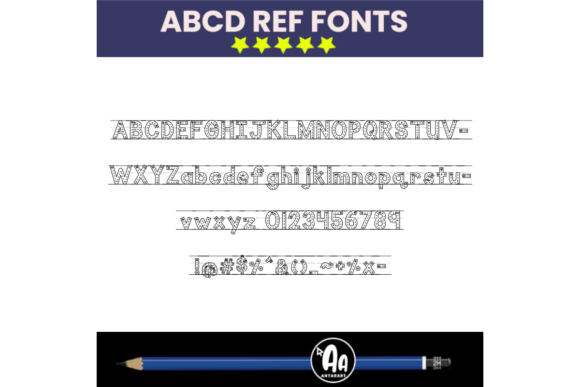
Introducing the Dashed Outlined Arrows Lined Font: A Game-Changer for Early Education
The Dashed Outlined Arrows Lined Font is a revolutionary tool designed to make learning fun and engaging for preschool, kindergarten, and early elementary learners. This clean, teacher-ready tracing font features outlined, dashed (dotted) lined alphabet and number glyphs, accompanied by numbered arrows and lined guides, making it perfect for printed worksheets, digital tracing slides, handwriting centers, and fine-motor practice.
What Makes This Font So Special?
This font is specifically designed to cater to the needs of early learners, including those with ESL and special education needs. The fonts ensure consistent and easy-to-teach alphabet and number formation, making it an ideal tool for morning work, intervention, homework, or printable practice pages.
The Dashed Outlined Arrows Lined Font features:
- Uppercase and lowercase letters with bold outlines
- Dashed lines to guide letter formation
- Numbered steps to encourage correct stroke order
- Arrows to indicate direction and movement
- Guidelines to help children build letter formation skills with confidence
Benefits for Early Learners
The Dashed Outlined Arrows Lined Font offers numerous benefits for early learners, including:
- Improved handwriting skills through guided practice
- Enhanced fine-motor skills through tracing and writing activities
- Boosted confidence in letter formation and writing abilities
- Developed correct stroke order and handwriting habits
Perfect for Educators and Parents
This font is a must-have for educators and parents seeking to create custom worksheets and engaging learning materials for early learners. The structured layout encourages correct stroke order and boosts handwriting readiness in a fun and engaging way.
With the Dashed Outlined Arrows Lined Font, educators and parents can:
- Create custom worksheets for morning work, intervention, or homework
- Develop interactive digital content for handwriting centers and fine-motor practice
- Design printable practice pages for preschool, kindergarten, and early elementary learners
Why This Font is Ideal for Early Education
The Dashed Outlined Arrows Lined Font is specifically designed to cater to the needs of early learners, making it an ideal tool for:
- Preschool activities: Introduce young learners to letter formation and handwriting skills
- Kindergarten activities: Develop fine-motor skills and handwriting habits
- Homeschool activities: Create customized learning materials for early learners
- ESL and special education needs: Provide additional support for learners requiring extra assistance
Tips for Using the Dashed Outlined Arrows Lined Font
Here are some tips for using the Dashed Outlined Arrows Lined Font effectively:
- Use the font to create custom worksheets for specific learning objectives
- Combine the font with images and graphics to create engaging learning materials
- Utilize the font for digital tracing slides and interactive activities
- Adjust font size and style to suit individual learning needs
The Dashed Outlined Arrows Lined Font is a valuable resource for early education, offering a comprehensive tool for teaching letter formation and handwriting skills. Its versatility and customizability make it an ideal choice for educators and parents seeking to create engaging learning materials for preschool, kindergarten, and early elementary learners.
Key Features Summary
- Outlined, dashed (dotted) lined alphabet and number glyphs
- Numbered arrows and lined guides
- Uppercase and lowercase letters with bold outlines
- Dashed lines, numbered steps, arrows, and guidelines
- Perfect for printed worksheets, digital tracing slides, handwriting centers, and fine-motor practice